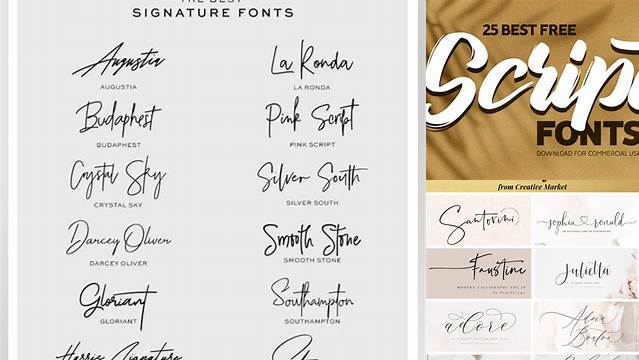
Free Script Fonts: Download The Best For Your Projects
Hey guys! Are you on the hunt for some stunning free script fonts to add that extra flair and personality to your projects? Well, you've come to the right place! In this article, we're diving deep into the world of script fonts, exploring everything from calligraphy-inspired designs to modern, handwritten styles. We'll cover where to find these gems, how to use them effectively, and even touch on some tips for pairing them with other fonts. So, buckle up and get ready to discover a treasure trove of free script fonts that will elevate your designs to the next level!
1. Best Free Calligraphy Script Fonts
Looking for that classic, elegant touch? Calligraphy script fonts are your go-to! These fonts mimic the fluid strokes of traditional calligraphy, adding a touch of sophistication and grace to any design. Think wedding invitations, greeting cards, and branding materials that need a refined aesthetic. When choosing a calligraphy script font, pay attention to the thickness of the strokes, the presence of swashes and flourishes, and the overall readability. A well-chosen calligraphy font can instantly elevate your project, making it feel more luxurious and high-end. For instance, imagine using a beautiful calligraphy script for a logo – it can instantly convey a sense of craftsmanship and attention to detail. However, be mindful of overuse; too much calligraphy can become overwhelming. Use it sparingly, highlighting key words or phrases for maximum impact. The key is balance – pair a delicate calligraphy script with a clean, sans-serif font for a modern twist. There are tons of free options online, so take your time to explore and find the perfect one that resonates with your project's unique vibe. Calligraphy fonts aren't just about aesthetics; they're about conveying a mood and a feeling. So, choose wisely, and let your designs speak volumes!
2. Top Free Handwritten Script Fonts
If you're aiming for a more personal and approachable feel, handwritten script fonts are the way to go. These fonts mimic natural handwriting, adding a touch of authenticity and warmth to your designs. They're perfect for blog headers, social media graphics, and anything that needs a friendly and relatable vibe. The beauty of handwritten fonts lies in their imperfections – the slight variations in stroke weight, the occasional quirky letterform, all contribute to their unique charm. When selecting a handwritten font, consider the overall legibility. While some fonts may look incredibly stylish, they might not be suitable for large blocks of text. Think about the context in which the font will be used. Is it for a short quote, a heading, or a body paragraph? This will influence your choice. Handwritten fonts can inject personality into your projects, making them feel less corporate and more human. They're a fantastic way to connect with your audience on a deeper level. Imagine a hand-written font on a thank you card or a personalized email; it instantly adds a touch of warmth and sincerity. But remember, not all handwritten fonts are created equal. Some can look messy or amateurish, so choose carefully. Look for fonts that balance character with readability, and you'll be golden!
3. Popular Free Brush Script Fonts
For a bold and dynamic look, brush script fonts are a fantastic choice. These fonts mimic the strokes of a paintbrush, adding a sense of energy and movement to your designs. They're ideal for posters, logos, and any project that needs to make a statement. Brush script fonts often have a raw, edgy feel, making them perfect for designs that need to stand out from the crowd. Think of the striking impact a brush script font can have on a band poster or a clothing brand logo. The bold strokes and expressive curves command attention, instantly conveying a sense of creativity and passion. However, brush script fonts can be tricky to use effectively. They're not always the most legible, especially in smaller sizes, so it's crucial to use them sparingly and in the right context. Pair a bold brush script with a clean, minimalist sans-serif for a striking contrast. This allows the brush script to shine without overwhelming the design. When choosing a brush script font, consider the overall weight and texture. Some fonts are thick and bold, while others are more delicate and textured. Select a font that complements the overall aesthetic of your project. Brush script fonts are a powerful tool in any designer's arsenal, but remember to wield them with care and intention!
4. Free Modern Script Fonts
If you're after a sleek and contemporary look, modern script fonts are your best bet. These fonts blend the elegance of traditional script with a clean, minimalist aesthetic, making them perfect for branding, web design, and anything that needs a sophisticated edge. Modern script fonts often feature clean lines, subtle curves, and a sense of understated elegance. They're less ornate than calligraphy scripts, making them more versatile for a wide range of applications. Imagine using a modern script font for a luxury brand logo or a high-end website – it instantly conveys a sense of style and sophistication. The key to using modern script fonts effectively is to pair them with the right fonts and design elements. A clean, sans-serif font is often a great choice, as it provides a visual contrast that allows the script font to stand out. Pay attention to the kerning and letter spacing to ensure that the font is legible and visually appealing. Modern script fonts are a fantastic way to add a touch of personality to your designs without sacrificing clarity or readability. They're a versatile choice for any project that needs a contemporary and stylish feel.
5. Unique Free Script Fonts
Looking for something that truly stands out? There's a whole world of unique free script fonts out there, just waiting to be discovered! These fonts push the boundaries of traditional script styles, offering a diverse range of aesthetics, from whimsical and playful to bold and edgy. Think of fonts with unusual letterforms, unexpected flourishes, or hand-drawn textures. These unique fonts can add a real wow factor to your designs, making them truly memorable. But with great uniqueness comes great responsibility! These fonts can be tricky to use effectively, so it's important to consider the context and the overall design. A highly stylized script font might not be suitable for large blocks of text, but it could be perfect for a logo or a short headline. The key is to use these fonts sparingly and strategically, allowing their unique character to shine through. When choosing a unique script font, think about the message you want to convey. Does the font match the tone and personality of your brand or project? Does it complement the other design elements? Don't be afraid to experiment and try out different combinations, but always prioritize legibility and clarity. A unique font can be a powerful tool for creating a memorable design, but it's essential to use it with intention and purpose.
6. Free Script Fonts for Cricut
Calling all Cricut crafters! Finding the perfect script font for your cutting projects is essential for creating beautiful and personalized designs. The best script fonts for Cricut are those that cut cleanly and easily, without any jagged edges or difficult-to-weed areas. Think of fonts with smooth lines, consistent stroke weights, and minimal embellishments. These Cricut-friendly fonts will save you time and frustration, ensuring that your projects turn out flawlessly. When choosing a script font for your Cricut, it's crucial to consider the size and complexity of your design. A delicate, intricate font might look stunning on screen, but it could be a nightmare to cut and weed at a small size. Opt for fonts with bolder strokes and simpler letterforms for smaller projects. You'll also want to think about the material you're using. Some materials, like vinyl, are more forgiving than others, like paper. Experiment with different fonts and materials to find the perfect combination for your needs. There are tons of free script fonts available online that are ideal for Cricut projects. Look for fonts specifically designed for cutting machines, as they often have optimized designs for smooth and clean cuts. With the right font, you can create stunning personalized gifts, home décor, and more!
7. Free Script Fonts for Procreate
Procreate artists, listen up! Adding beautiful hand-lettered text to your digital artwork can take your creations to the next level. And the good news is, there are plenty of fantastic free script fonts that work seamlessly with Procreate. When choosing a script font for Procreate, consider the style and aesthetic of your artwork. Do you want a classic calligraphy script, a modern handwritten style, or something more unique and playful? The font should complement the overall vibe of your piece. You'll also want to think about the size and resolution of your canvas. A delicate, intricate font might not look its best at a low resolution, so it's important to choose a font that scales well. Procreate allows you to import custom fonts, giving you access to a vast library of free and premium options. Experiment with different fonts and find the ones that resonate with your style. You can also customize the fonts within Procreate, adjusting the size, spacing, and color to create the perfect hand-lettered look. Adding text to your Procreate artwork can be a powerful way to convey a message, add context, or simply enhance the overall aesthetic. With the right script font, you can create stunning digital masterpieces!
8. Free Script Fonts for Logos
A logo is the face of your brand, so choosing the right font is crucial. A well-chosen script font can add a touch of elegance, personality, or creativity to your logo, making it memorable and impactful. When selecting a free script font for your logo, it's essential to consider your brand identity. What message do you want to convey? Are you going for a classic and sophisticated look, a modern and playful feel, or something else entirely? The font should align with your brand's values and target audience. You'll also want to think about legibility. A beautiful script font is useless if it's difficult to read, especially in smaller sizes. Ensure that your logo is legible both online and in print, across various applications. Consider the overall design of your logo. The font should complement the other elements, such as your brand colors and imagery. A script font can be a fantastic way to add a personal touch to your logo, but it's important to use it strategically. Avoid overly ornate or complex fonts, as they can be difficult to read and reproduce. Look for fonts with clean lines and a balanced aesthetic. With the right script font, you can create a logo that truly represents your brand!
9. Free Script Fonts for Wedding Invitations
Planning a wedding? The invitations are your guests' first glimpse into your special day, so making a lasting impression is key. Free script fonts are a popular choice for wedding invitations, adding a touch of elegance and romance. When selecting a script font for your wedding invitations, consider the overall style and theme of your wedding. Are you going for a classic and traditional affair, a rustic and bohemian vibe, or something more modern and minimalist? The font should complement the overall aesthetic. Calligraphy scripts are a classic choice for wedding invitations, exuding timeless elegance. However, modern script fonts are also a fantastic option, offering a cleaner and more contemporary look. You'll also want to think about legibility. While a beautiful script font is important, it's crucial that your guests can easily read the details of your wedding. Choose a font that is clear and easy to read, especially for important information like the date, time, and location. Consider pairing a script font with a clean sans-serif for the body text of your invitation. This creates a visual contrast that enhances readability. There are tons of free script fonts available online that are perfect for wedding invitations. With the right font, you can create invitations that are as beautiful and unique as your special day!
10. Free Script Fonts for Commercial Use
Designing for commercial projects? Finding free script fonts for commercial use is essential for creating professional and legally compliant designs. Not all free fonts are created equal, and it's crucial to understand the licensing terms before using a font in a commercial project. A commercial use license allows you to use the font in projects that you intend to sell or profit from, such as logos, branding materials, and websites. Some free fonts come with a commercial use license, while others are only free for personal use. Using a font without the proper license can lead to legal issues, so it's important to do your research. When searching for free script fonts for commercial use, look for websites that clearly state the licensing terms. Many font foundries offer free fonts with a commercial use license, as a way to promote their paid fonts. You can also find free fonts on websites that specialize in free resources for designers. Before using a font, always double-check the license to ensure that it covers your intended use. Some licenses may have restrictions on how the font can be used, such as limitations on embedding the font in digital documents or using it in products for resale. There are plenty of fantastic free script fonts available for commercial use, allowing you to create professional and legally compliant designs. Just remember to read the fine print!